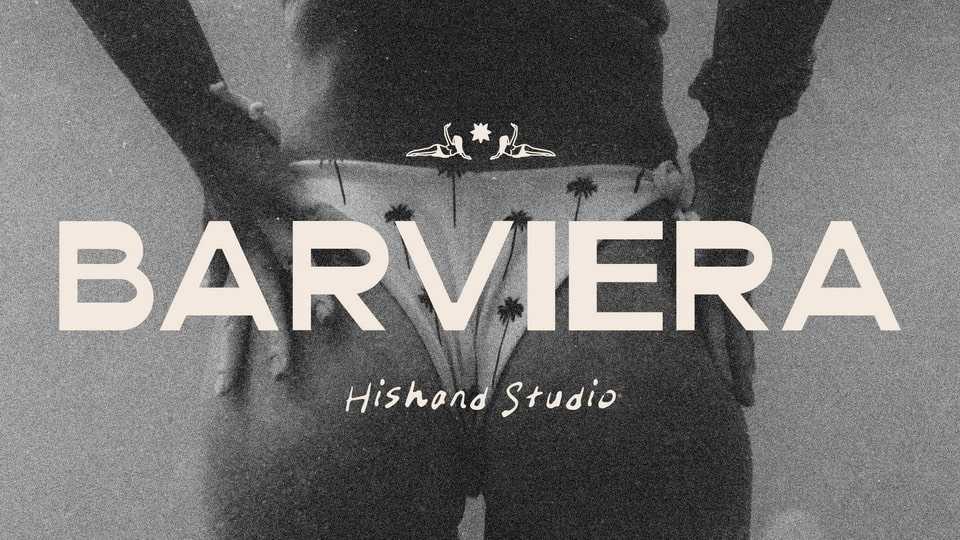
Download Barviera font, a display sans-serif typeface, bold, modern, and effortlessly aesthetic. Designed with clean shapes and playful balance, it brings a fresh creative energy that makes every word stand out.